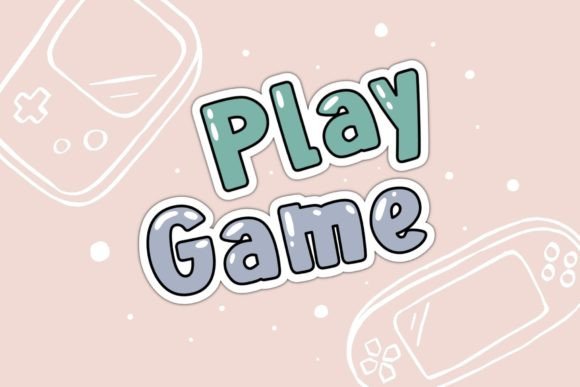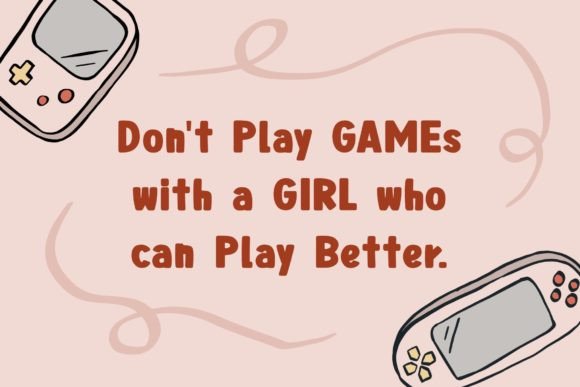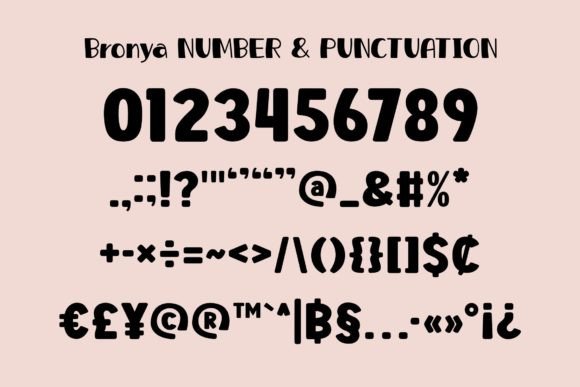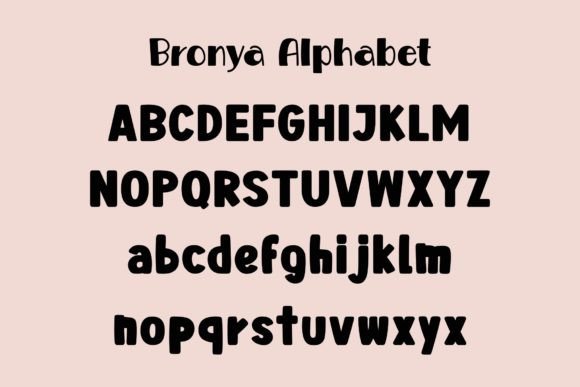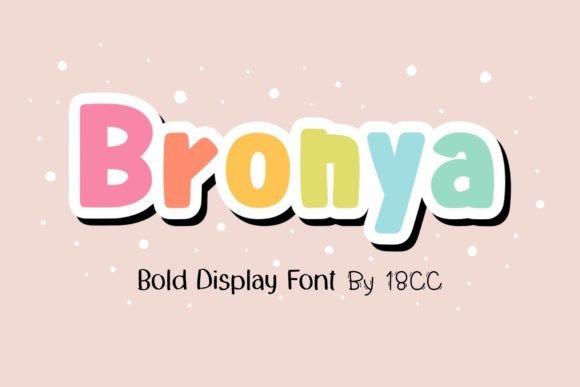
The Ultimate Guide to Bronya Font: Adding a Playful Touch to Your Designs
Have you ever been in the middle of a design project, and suddenly, you just can’t seem to find the right font? I recall a particularly frustrating experience while working on a book cover design. My client wanted something bold, playful, and eye-catching, but everything I tried seemed either too dull or too over-the-top. That’s when I stumbled upon the Bronya font, and it completely transformed my design. In this article, we’ll dive into the world of Bronya, exploring its features, uses, and some valuable tips on how to make the most of this fantastic font.
Bronya Font: A Personal Review
So, what makes Bronya so special? Let’s take a closer look.
What I Love About Bronya
- ✨ Bold and playful: Bronya is a bold display font that adds a fun and lively touch to any design.
- ✅ Highly versatile: It’s perfect for a wide range of projects, including book covers, posters, packaging, merchandise, logotypes, and more.
- 🎉 Easy to read: Despite its boldness, Bronya remains surprisingly legible, making it ideal for headlines and titles.
While Bronya is an excellent font, it’s not without its quirks. Here are a few things to keep in mind:
- 🤔 Limited use in body text: Due to its bold nature, Bronya might not be the best choice for lengthy body text. It’s best used for headings and titles.
- ⚠️ Overuse can be overwhelming: As with any bold font, be careful not to overuse Bronya, as it can quickly become overwhelming.
The Backstory of Bronya Font
Bronya was designed with the intention of creating a bold, playful font that could add a fun touch to any design. Inspired by the idea of playfulness and neatness, Bronya’s creator aimed to craft a font that would be both eye-catching and easy to read. While the exact details of its creation are unclear, it’s evident that Bronya was designed with the modern designer in mind.
Q: What type of projects is Bronya best suited for?
A: Bronya is perfect for projects that require a bold, playful touch, such as book covers, posters, packaging, merchandise, logotypes, and more.
Q: Can I use Bronya for body text?
A: While Bronya is an excellent font, it’s not ideal for lengthy body text due to its bold nature. It’s best used for headings and titles.